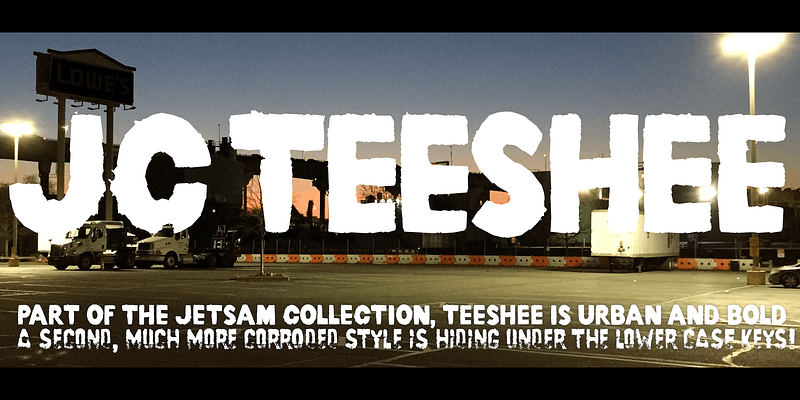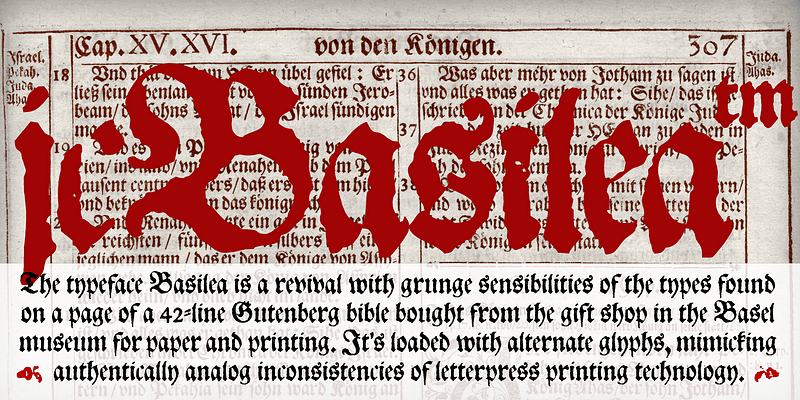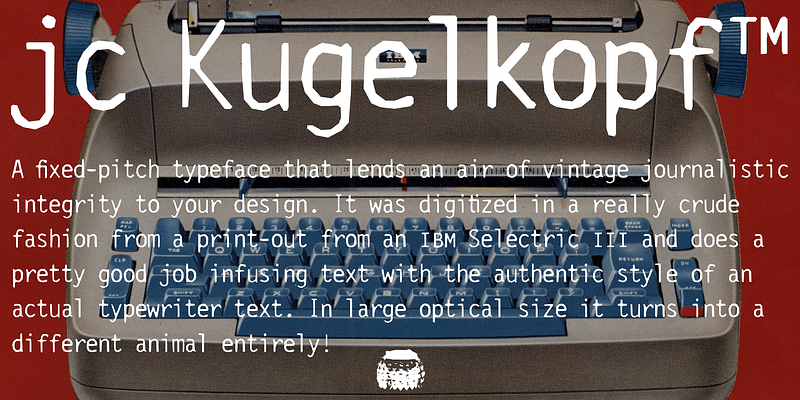
The digitization of my father’s IBM Selectric typewriter. Jetsam Collection Basilea is a distressed blackletter font. The shapes of the letters in this font were taken off a shipping box that contained t-shirts from Egypt. The upper case is solid and bold. The lower case letters are skinny and fizzling out at the bottom. Two fonts in one! It also contains superiors and a range of symbols for abbreviations for things like like street, place, avenue…